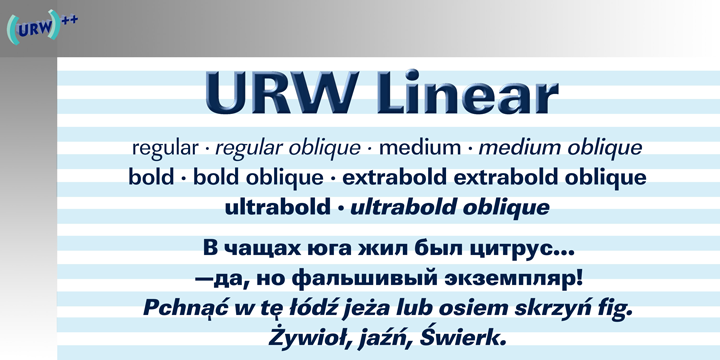
Linear Font is perfect for modern architecture firms, engineering documentation, minimalist brand identities, tech startup logos, geometric poster designs, industrial product catalogs, contemporary art galleries, clean web interfaces, scientific presentation materials, and precision manufacturing branding. This sleek geometric typeface excels in applications where mathematical precision, modern minimalism, and structural clarity need to be communicated with systematic elegance and contemporary architectural appeal.
Linear Font is exciting because it embodies the pure essence of geometric design and mathematical precision with every systematically constructed letterform. Its clean lines and perfectly balanced proportions create an immediate sense of order and modern sophistication. The font's distinctive minimalist characteristics and precise construction make it particularly compelling for brands seeking to communicate clarity, innovation, and authentic modern design values in their contemporary marketing communications and forward-thinking brand identities.
The Linear Font family includes various geometric styles: Thin, Light, Regular, Medium, Bold, and Black versions, each maintaining the characteristic linear aesthetic while offering different levels of visual weight and structural emphasis. These variations provide designers with comprehensive tools for creating layered minimalist compositions and achieving perfect balance between geometric precision and contemporary functionality.
For designers creating modern brands or architecture-focused projects, Linear Font Free Download offers authentic geometric character with professional design precision. Whether you're developing technology company identities, architectural firm marketing materials, or minimalist product branding, this systematic typeface provides the perfect foundation for conveying modern clarity and geometric sophistication. The font's extensive character set includes technical symbols and mathematical elements that enhance contemporary design compositions and modern brand storytelling with genuine architectural typographic excellence.